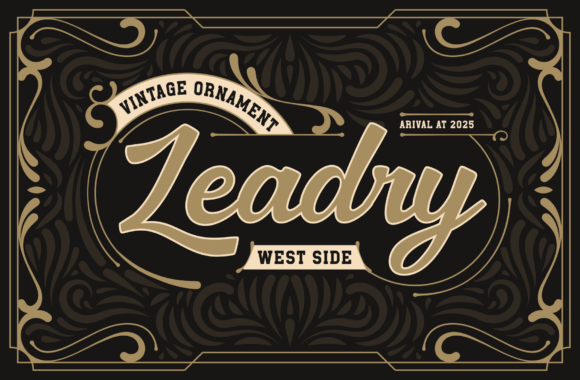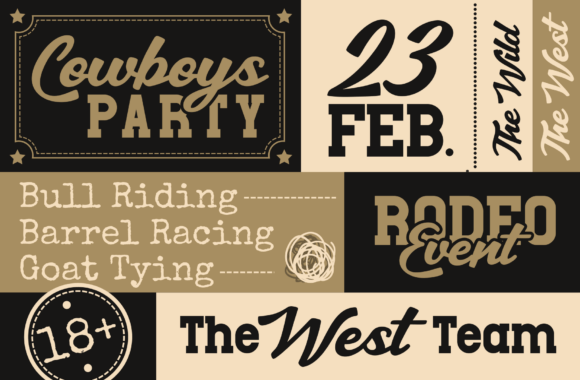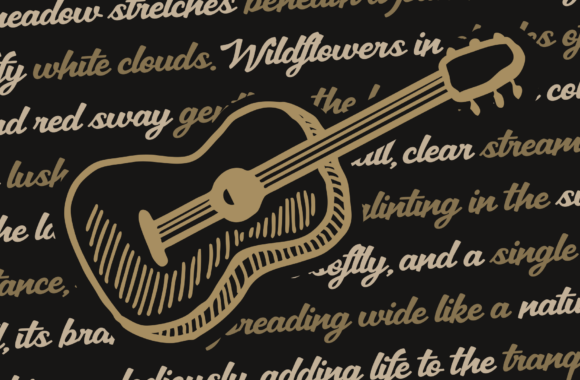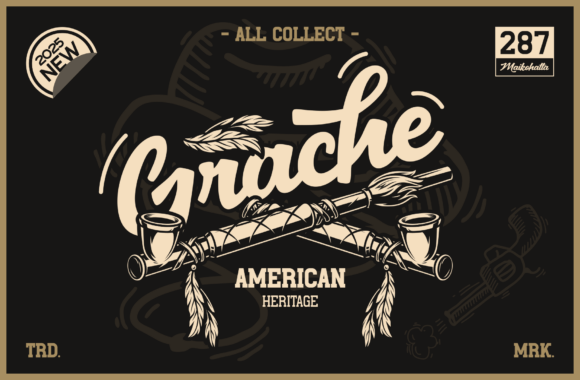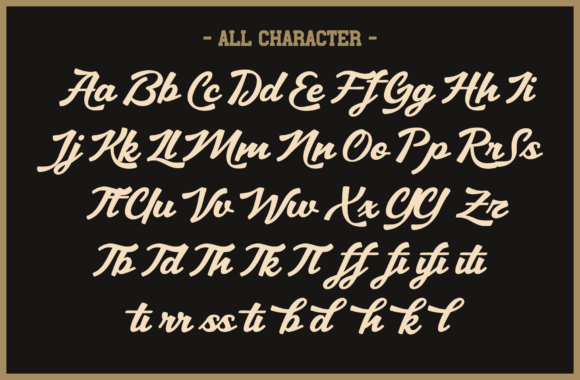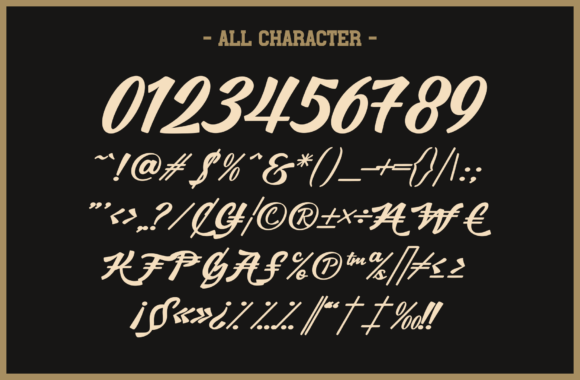
Introducing a New Era of Typography: Kahyin Font
Have you ever found yourself lost in a sea of font options, struggling to find the perfect combination to elevate your design project? We’ve all been there. As designers, we know that the right font can make all the difference between a great design and a mediocre one. It’s that moment of serendipity when you stumble upon a font that perfectly captures the essence of your project’s tone and style.
That’s where our new Kahyin Font comes in – a classic script font designed to provide a clean, professional, and contemporary look. Its simplicity and visual appeal make it an excellent choice for graphic designers and typography enthusiasts alike. With Kahyin Font, you can add a touch of elegance and sophistication to your designs, making it a valuable addition to any designer’s toolkit.
Kahyin Font Key Features
- Unique Characteristics: The font features a distinctive, modern design with clean lines, geometric shapes, and a balanced x-height, making it suitable for a wide range of applications, from body text to headlines.
Kahyin Font Review
I recently had the chance to work with the Kahyin font, and I must say it’s a unique and interesting typeface. Here are my thoughts on what works well and what could be improved.
- The Kahyin font has a distinct, hand-drawn feel that adds a touch of personality to any design.
- The font’s variable weights and styles offer a lot of flexibility for customizing the look and feel of a project.
- The font is well-suited for use in logos, branding, and other applications where a unique, artistic feel is desired.
- The font’s irregular shapes and connections can make it difficult to read at small sizes or in tight spaces.
- The font’s variable styles can be overwhelming or inconsistent if not used thoughtfully.
- The font may not be suitable for use in large blocks of text or in applications where readability is a top priority.
Overall, I think the Kahyin font is a great choice for designers looking to add some personality and flair to their projects. However, it’s not a good fit for every design challenge. With careful use and consideration of its limitations, the Kahyin font can be a valuable addition to any designer’s toolkit.
Tips for Getting the Most Out of Kahyin Font
Use Kahyin Font for titles and headings to add a touch of elegance and sophistication to your designs.
Experiment with different font sizes and colors to create visual interest and balance.
Combine Kahyin Font with other fonts to create a unique and visually appealing typography.
Kahyin Font is perfect for:
Branding and logos
Editorial and publishing designs
Alternatives to Kahyin Font for Designers
Montserrat is a sans-serif font that originated from a sign in a Buenos Aires neighborhood. It is perfect for headings and titles due to its bold and geometric style. Montserrat is a great alternative to Kahyin Font when you need a strong and modern look.
Comparison: Montserrat has a more geometric and structured feel compared to Kahyin Font’s softer, handwritten style.
Q: What is the recommended font size and line height for the Kahyin Font?
The recommended font size for the Kahyin Font is between 12-24 points, depending on the application and desired level of legibility. For optimal readability, we recommend a line height of at least 1.2-1.5 times the font size. This will help ensure that the text is clear and easy to read, even at smaller font sizes.